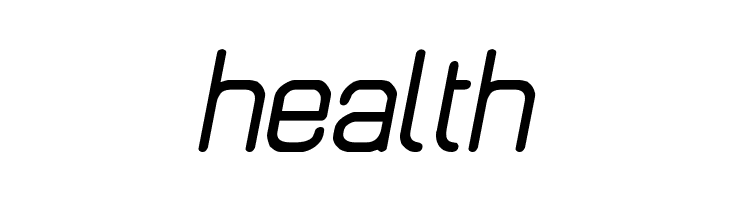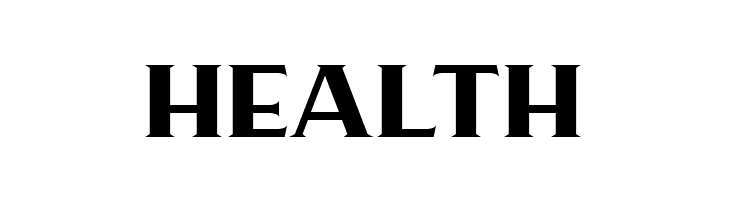
( Nils Merkel )
A classic serif font with elegant, balanced proportions and modern touches.
( Ozan Karakoc - be.net/ozankarakoc )
A modern sans-serif font with clean lines and balanced proportions.
( Rachel San )
A modern, geometric sans-serif typeface with balanced proportions and clean lines.
( Rachel San )
A clean, modern sans-serif font with balanced proportions and excellent readability.
( Roland Huse Design - Roland Huse - rolandhuse.com )
A modern sans-serif font with clean lines and balanced proportions.
( Southype - Rodrigo Gonzalez - www.southype.com )
A modern, slightly italicized font with rounded edges and balanced proportions.
( The Northern Block - Jonathan Hill - www.thenorthernblock.co.uk )
A modern, geometric sans-serif font with balanced proportions and uniform stroke width.
( Twicolabs Fontdation - Fahrizal Tawakkal - fontdation.com )
A classic serif font with strong serifs and balanced proportions.
( Typodermic Fonts - Ray Larabie - www.typodermicfonts.com/ )
A modern, clean sans-serif font with balanced proportions and geometric influences.
( Typodermic Fonts - Ray Larabie - www.typodermicfonts.com/ )